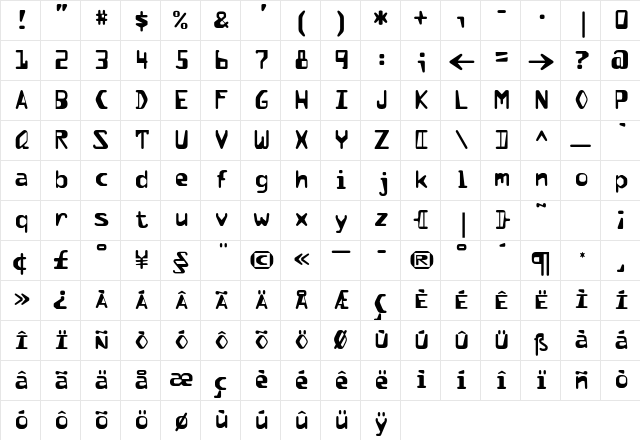
F2FOCRAlexczyk LT Std Regular Regular
Designer: Alexander Branczyk
Design Context for F2FOCRAlexczyk LT Std Regular
F2FOCRAlexczyk LT Std Regular is a composed and adaptable typeface that performs quietly and consistently across a wide range of design contexts. Its slender proportions lend an understated elegance to any composition.